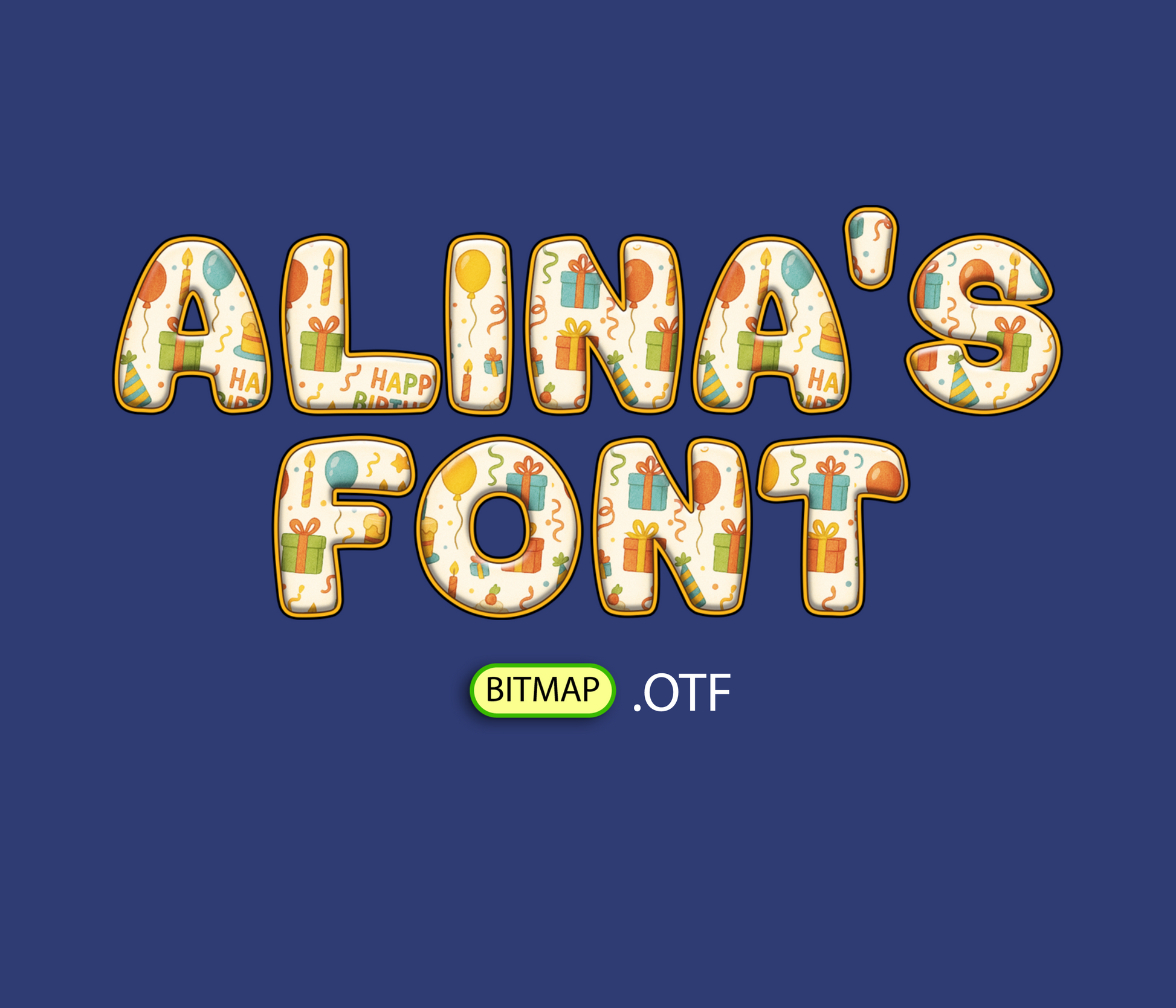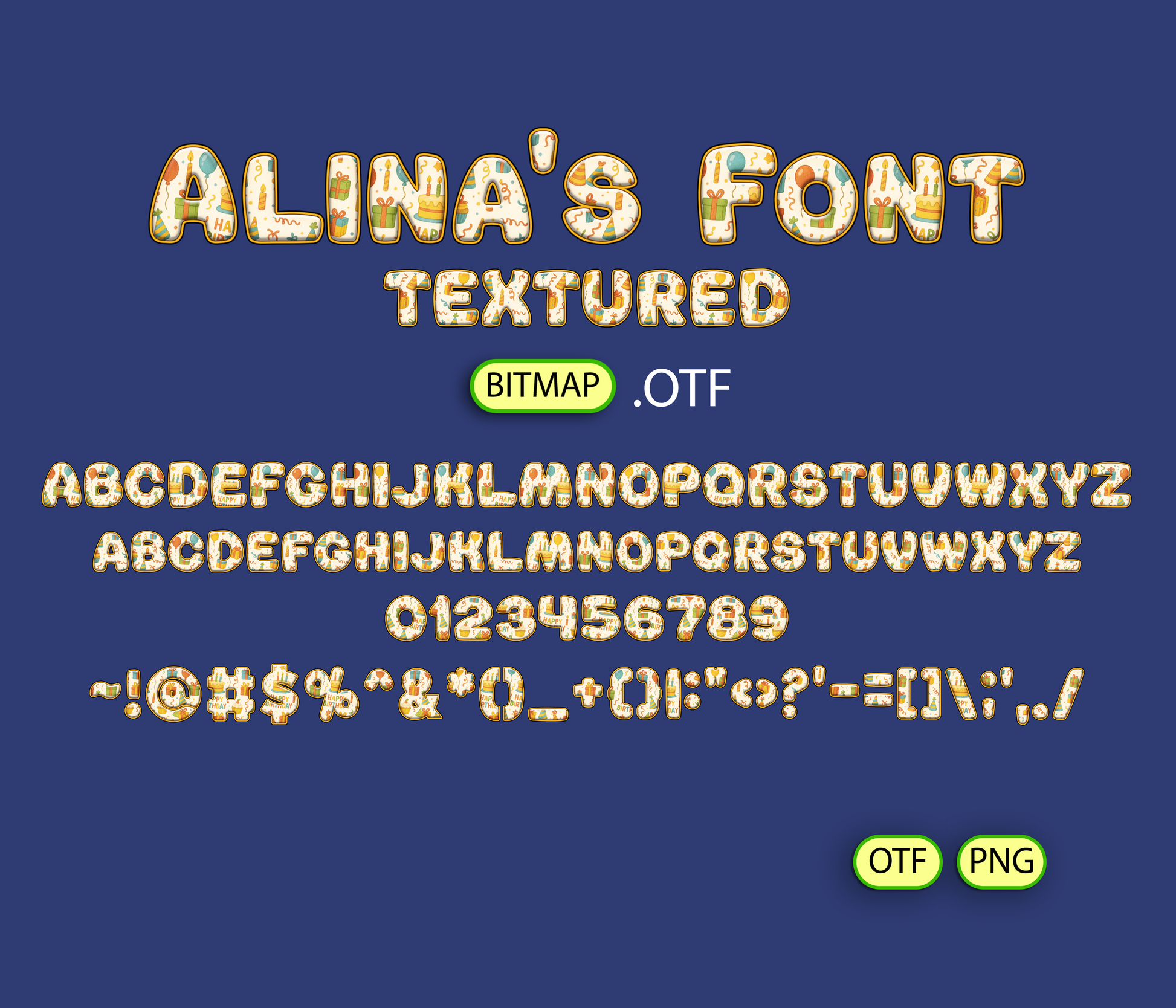
FREE Birthday Celebration Pattern Font
Birthday Typeface Textured Celebration
Step into the joyful world of special celebrations with our Birthday Typeface, capturing the essence of colorful balloons, flickering candles, and festive confetti. Perfect for party planners, greeting card designers, event organizers, and creative professionals, this font brings the cheerful, celebratory spirit of milestone moments to your projects. Create delightful signage, party-themed products, or digital content with the vibrant, magical energy of birthday wishes and cake-filled celebrations.
Our Birthday Typeface features playful, balloon-inspired curves, sprinkle textures, and jubilant characters reflecting the fun and festive aesthetic of birthday celebrations. Ideal for:
- Party Business: Create appealing logos, packaging, and promotional materials for party supply stores, event planning companies, and celebration venues
- Children's Design: Perfect for birthday cards, party decorations, and celebration materials that bring joy and excitement to special occasions
- Digital Media: Enhance websites, blogs, and social media with cheerful headers and graphics that express happiness, celebration, and memorable moments
- Event Content: Add authentic character to invitation designs, party materials, and promotional content for birthday services and celebration planning
- Personal Projects: Bring festive charm to greeting cards, craft projects, and home decor inspired by the aesthetics of birthday parties and special occasions